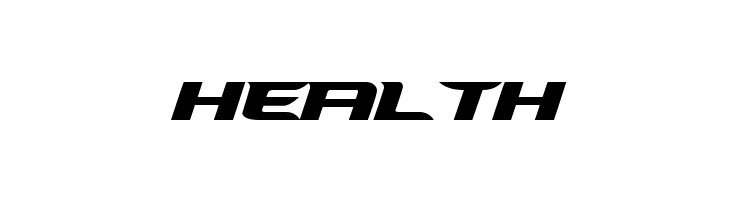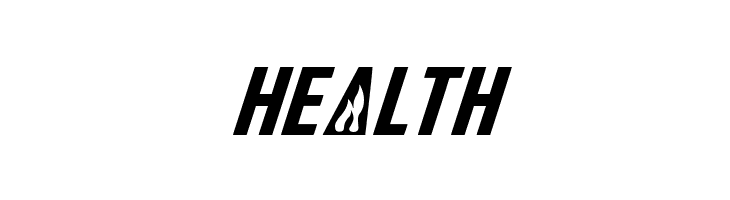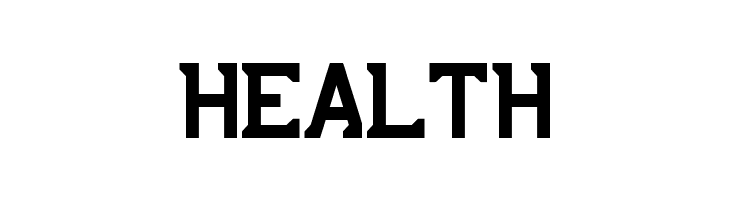
( Fonts by Daniel Gauthier )
A geometric, maze-like font with bold, interconnected lines and a modern artistic style.
A bold, geometric font with a strong, industrial style.
A bold, angular font with a sporty, dynamic style.
Bold, italicized font with a dynamic and modern style.
A bold, geometric font with sharp angles and a modern aesthetic.
A bold, geometric font with a modern and impactful style.
Cartoonish, gangster-themed illustrated character font.